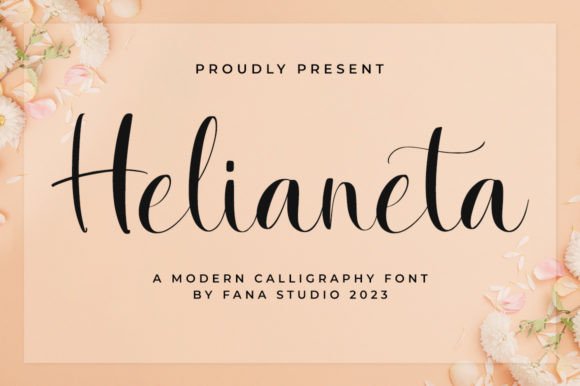
Journey into the realm of digital art and design, where creativity and elegance entwine to form Helianeta Font, a script font of unparalleled beauty and charm. Designed by the ingenious minds at fanastudio, each letterform in this font exudes a symphony of sophistication and grace.
Helianeta Font is a remarkable creation that captures the essence of timeless elegance. Its meticulously crafted curves and intricate details harmoniously blend to form characters that possess a captivating aura of artistry. This font is a true masterpiece, a testament to the boundless creativity that resides within the realm of digital typography.
By incorporating Helianeta Font into your creative arsenal, you unleash a world of possibilities. Whether you're a seasoned designer seeking to elevate your projects or an aspiring artist exploring new avenues of self-expression, this font will guide you on an extraordinary journey. Experience the joy of typography as you witness your designs transform into captivating works of art.
With Helianeta Font as your creative companion, you'll effortlessly create designs that speak volumes. Its versatility knows no bounds, allowing you to craft stunning logos, captivating social media graphics, eye-catching website headers, and any other digital creation your heart desires.
Elevate your digital creations to new heights of sophistication and charm with Helianeta Font. Let your imagination soar as you explore the limitless possibilities that await you within the world of this enchanting font.